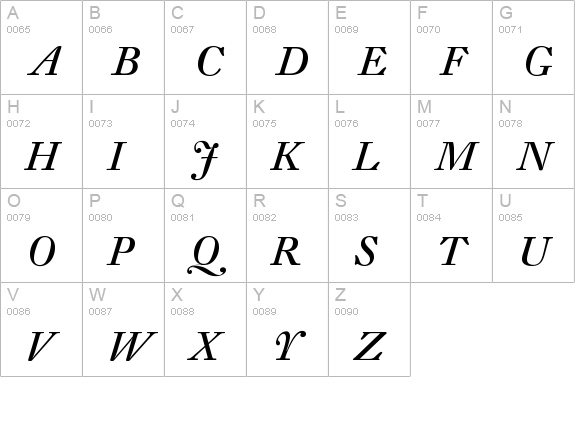
DTLFleischmannT-Italic is a distinctive, italic variant in the DTLFleischmannT typeface family \xE2\x80\x94 well suited to design and typography projects.
The DTLFleischmannT-Italic font is a stunning and elegant typeface that exudes sophistication and style. Its distinctive italic design adds a touch of flair to any project, making it perfect for adding a touch of elegance to your designs. With its clean lines and graceful curves, this font is versatile and can be used for a variety of purposes, from branding to editorial design. What's even better is that the DTLFleischmannT-Italic font is available for free! You can easily download this exquisite font from FontsMarket.com and start using it in your projects right away. Don't miss out on the opportunity to add this beautiful typeface to your font collection today!